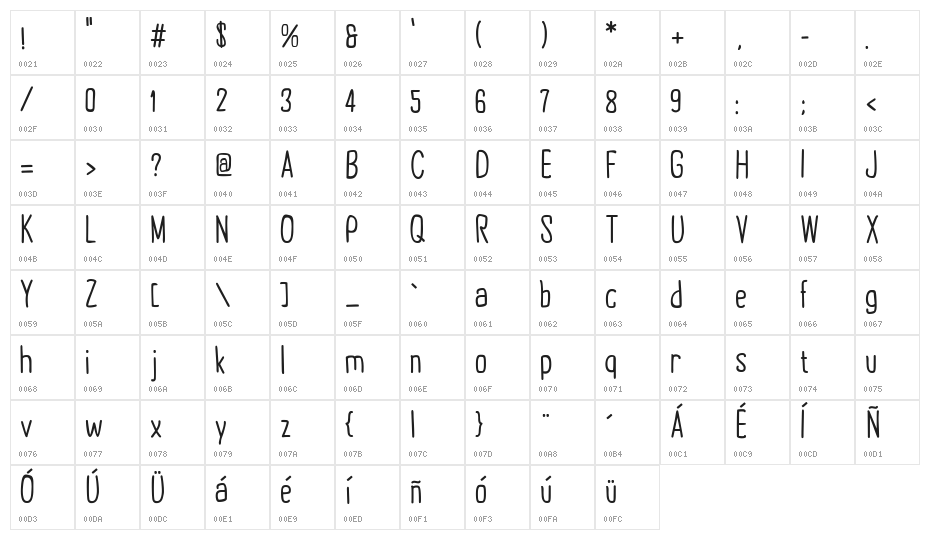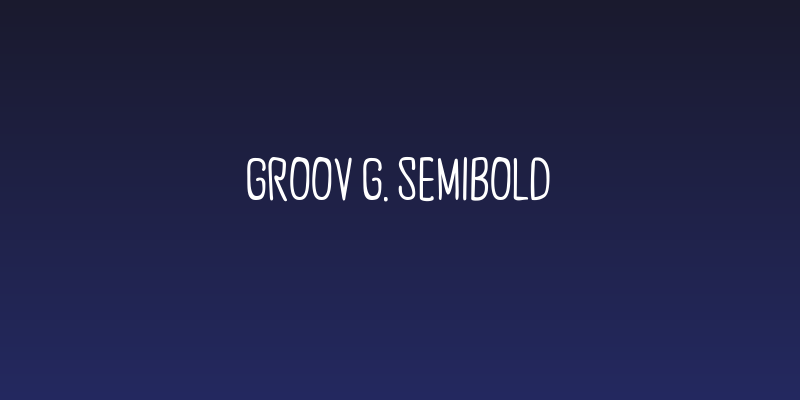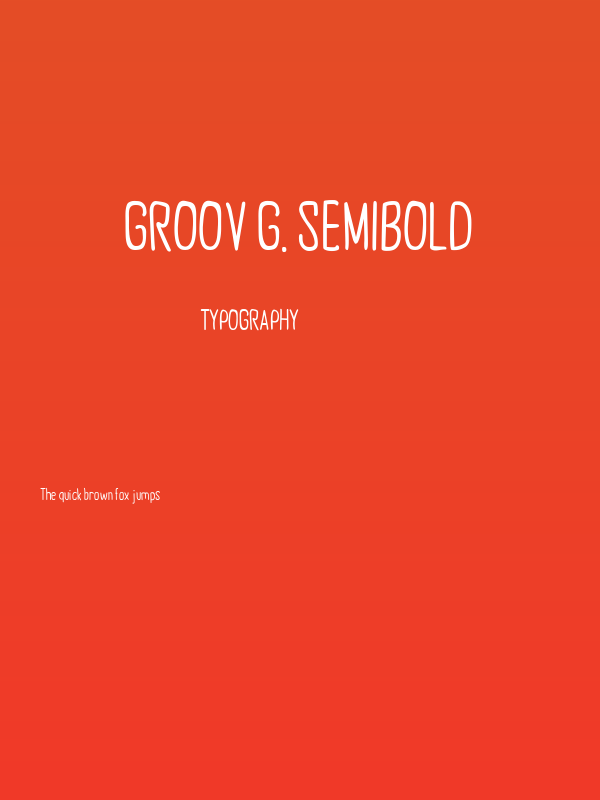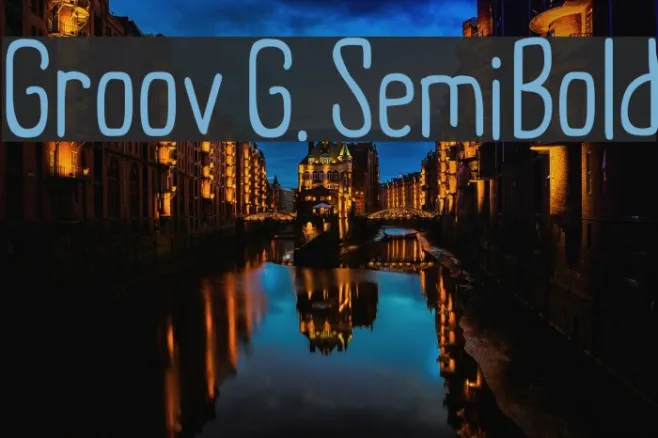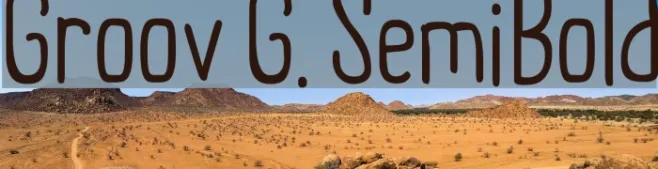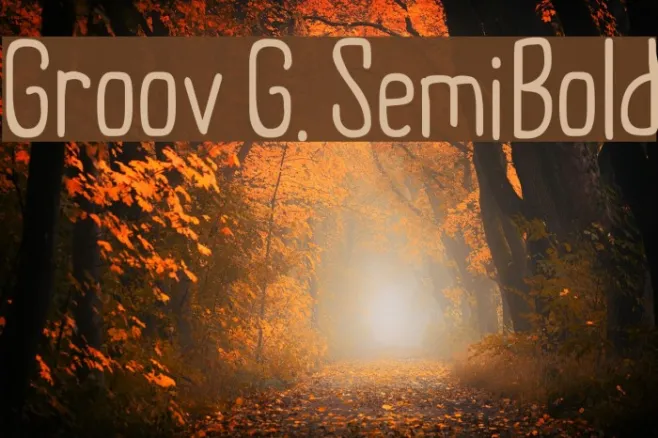
Groov G. SemiBold Font
Groov G. SemiBold Description
This font features a playful and modern design with rounded edges and a slightly condensed appearance. The characters are uniformly bold, giving them a strong presence while maintaining a friendly and approachable look. The uppercase letters are tall and narrow, while the lowercase letters have a more relaxed, open feel. The numerals are consistent with the overall style, ensuring readability and cohesion. Special characters are well-integrated, adding to the font's versatility. This font is ideal for projects that require a contemporary and informal touch.
| Proposed Projects | Ideal for branding, advertising, children's books, and playful graphic design projects. |